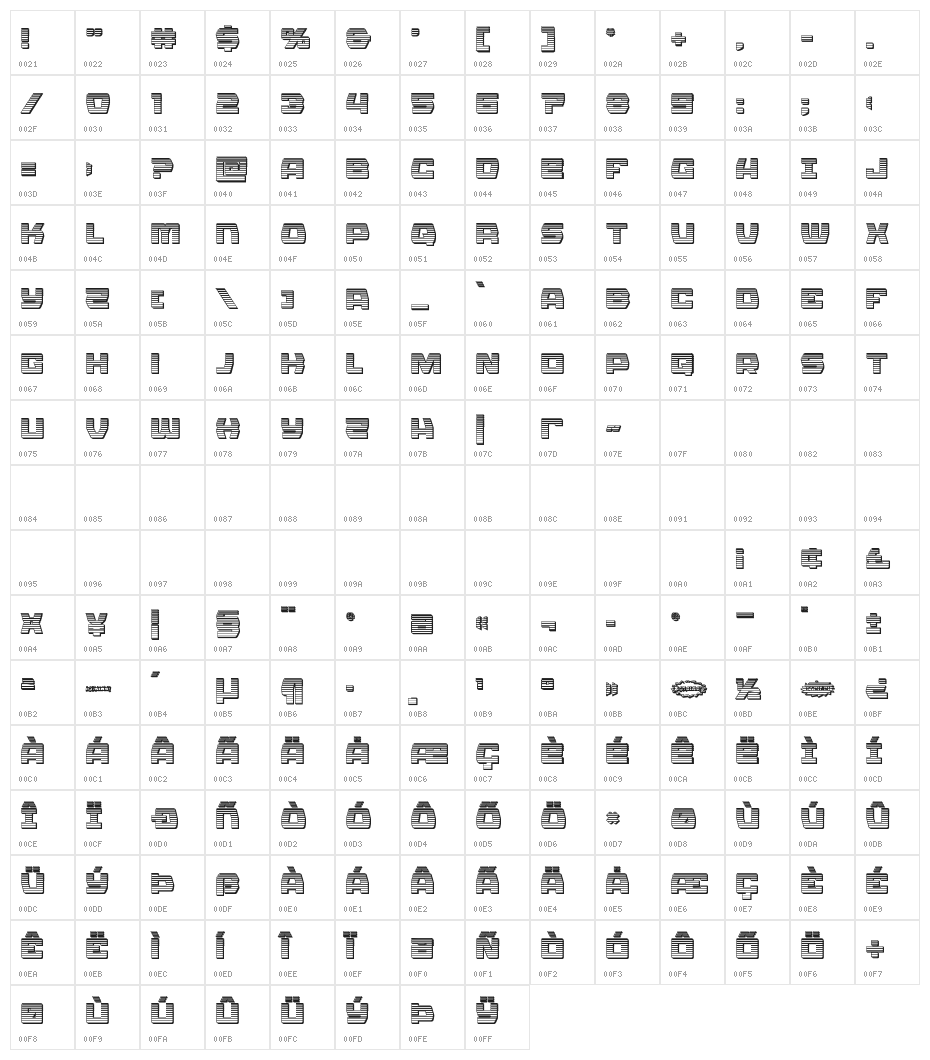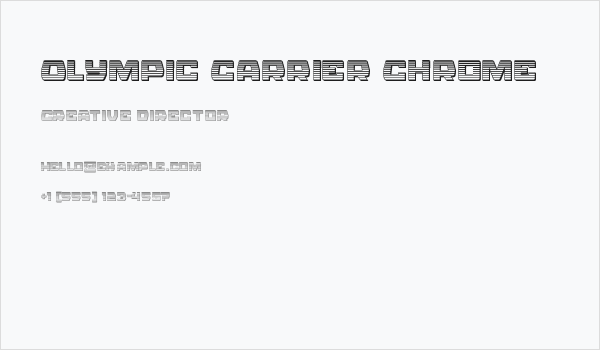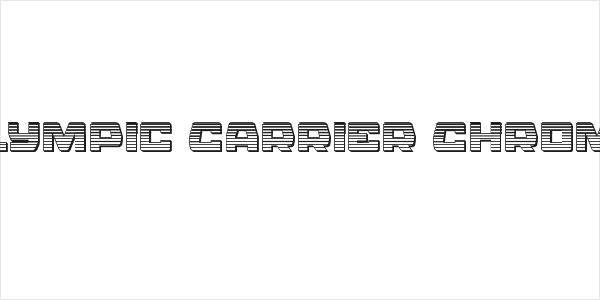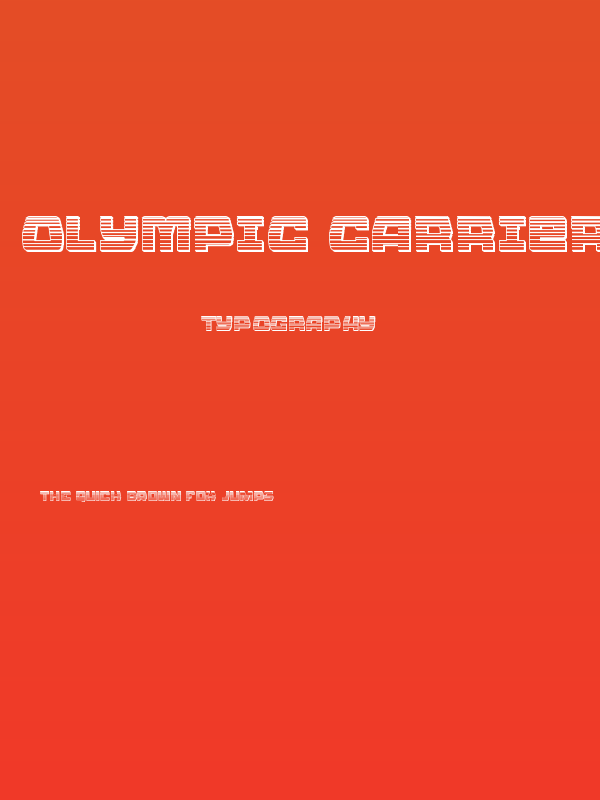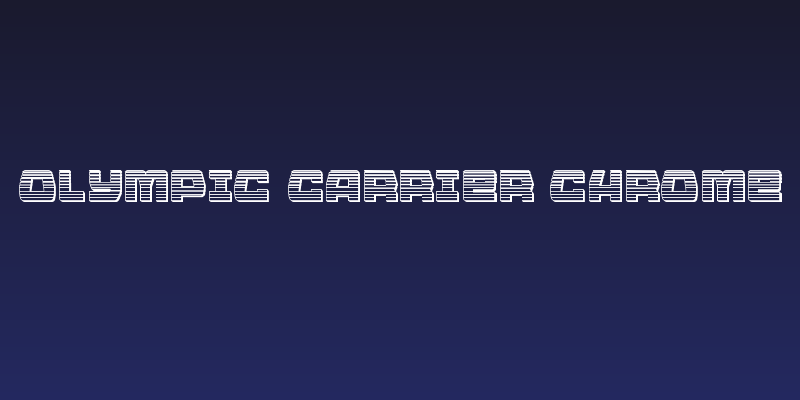
Olympic Carrier Chrome Font
Olympic Carrier Chrome Description
This font features a bold, geometric design with a distinct three-dimensional effect created by parallel lines running through each character. The uppercase letters are structured with sharp angles and a blocky appearance, giving them a futuristic and industrial feel. The numbers and special characters maintain this style, ensuring consistency across all glyphs. The font's unique design makes it stand out, with each character appearing as if it's constructed from metal or chrome, adding to its modern and sleek aesthetic.
| Proposed Projects | Ideal for projects that require a modern, futuristic look such as technology branding, video game titles, or sci-fi movie posters. |